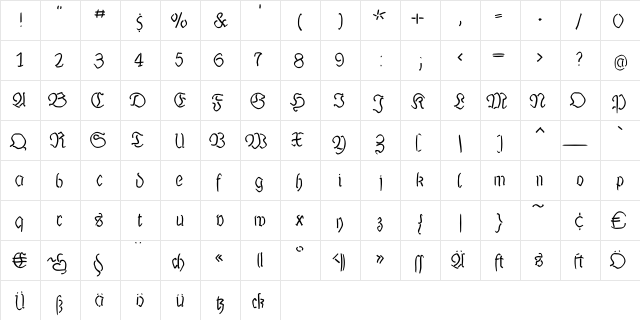
LutherMousedrawn Regular
Design Context for LutherMousedrawn Typeface
LutherMousedrawn is a composed and adaptable typeface that performs quietly and consistently across a wide range of design contexts.